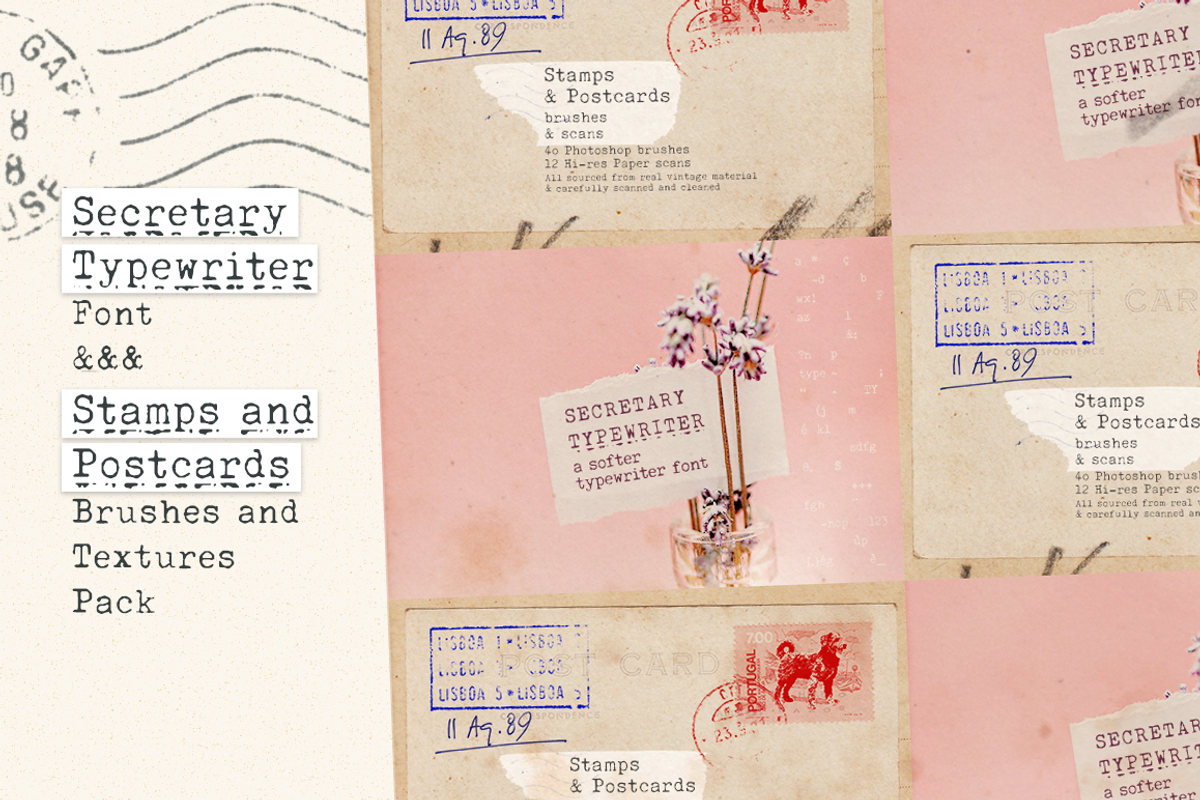
Secretary Typewriter & Texture Pack Free Download is a nostalgic, vintage-inspired bundle that brings the charm of old-school typewriting to your creative projects. Featuring a classic typewriter-style font with authentic letterpress textures, this pack is perfect for stationery, branding, book covers, social media posts, and retro-themed designs.
Whether you’re channeling the vibe of vintage correspondence or crafting editorial content with historical flair, this typewriter font and texture combo delivers authenticity and creative depth. It’s a must-have for designers seeking retro aesthetics with real character.